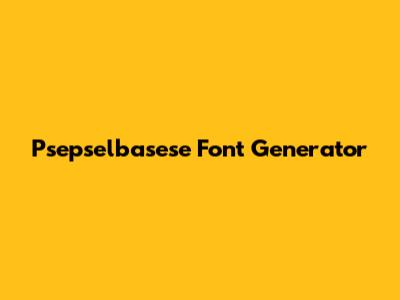
- Input: You enter your desired text into the generator's input field. This could be a word, a phrase, or even a whole paragraph.
- Processing: The generator's algorithms analyze your input and identify each character.
- Transformation: For each character, the generator applies a specific transformation based on the selected font style. This might involve changing the letter's shape, adding decorative elements, or altering its spacing.
- Output: The generator reassembles the transformed characters into a new string of text, which is displayed as the output. This output is the Psepselbasese-style version of your original text.
- Copy & Paste: You can then copy the generated text and paste it into your desired application, such as a social media post, a design project, or a document.
- Variety of Font Styles: The more font styles a generator offers, the more options you have for creating unique text. Look for generators that provide a wide range of styles, from subtle variations to more dramatic transformations. Consider styles like bold, italic, monospace, cursive, and decorative fonts. A good variety ensures that you can find the perfect style to match your specific needs.
- Customization Options: The best generators allow you to customize the font style to your liking. This might include options to adjust font size, color, spacing, and other parameters. The ability to tweak these settings gives you greater control over the final output and allows you to fine-tune the text to achieve the desired look. Some generators even offer advanced customization options, such as the ability to add shadows, outlines, or other special effects.
- Ease of Use: A user-friendly interface is essential for a good font generator. The generator should be easy to navigate and understand, even for beginners. Look for generators with clear instructions and intuitive controls. The process of inputting text, selecting a font style, and generating the output should be straightforward and hassle-free. A clean and simple interface can save you time and frustration, allowing you to focus on the creative aspects of the process.
- Preview Feature: A preview feature allows you to see how your text will look before you generate the final output. This is incredibly helpful for experimenting with different font styles and customization options. The preview should update in real-time as you make changes, so you can quickly see the effect of your adjustments. A good preview feature can save you time and prevent you from generating text that doesn't meet your expectations.
- Copy & Paste Functionality: The ability to easily copy and paste the generated text is crucial for seamless integration with other applications. The generator should provide a simple way to copy the text to your clipboard, so you can paste it into your desired document, social media post, or design project. Some generators even offer options to download the generated text as an image or other file format.
- Social Media: Psepselbasese fonts are a fantastic way to make your social media posts stand out. Use them in your profile bio, captions, and comments to grab attention and express your unique style. Whether you're promoting a brand, sharing a personal update, or just trying to be creative, these fonts can help you make a lasting impression.
- Design Projects: If you're working on a design project, such as a poster, flyer, or logo, Psepselbasese fonts can add a unique and eye-catching element. Use them sparingly to highlight key information or to create a focal point. Just be careful not to overuse them, as too much of a unique font can become overwhelming.
- Websites and Blogs: Incorporating Psepselbasese fonts into your website or blog can enhance its visual appeal and create a memorable user experience. Use them for headings, subheadings, or call-to-action buttons to draw attention to important elements. Again, moderation is key. A few well-placed Psepselbasese fonts can make a big impact without cluttering the design.
- Invitations and Cards: Planning a special event? Use Psepselbasese fonts to create unique and personalized invitations or cards. These fonts can add a touch of elegance, whimsy, or fun, depending on the style you choose. They're perfect for weddings, birthdays, holidays, and other special occasions.
- Presentations: Add visual interest to your presentations by incorporating Psepselbasese fonts into your slides. Use them for titles, bullet points, or to highlight key takeaways. Just be sure to choose fonts that are easy to read and don't distract from the content.
- Personal Projects: Don't forget about personal projects! Psepselbasese fonts can be used to add a personal touch to scrapbooks, journals, artwork, and other creative endeavors. Let your imagination run wild and see what you can create!
- Use Sparingly: Psepselbasese fonts are designed to be eye-catching and unique, but they can easily become overwhelming if overused. Stick to using them for headings, titles, or other key elements that you want to highlight. Avoid using them for large blocks of text, as this can make the text difficult to read.